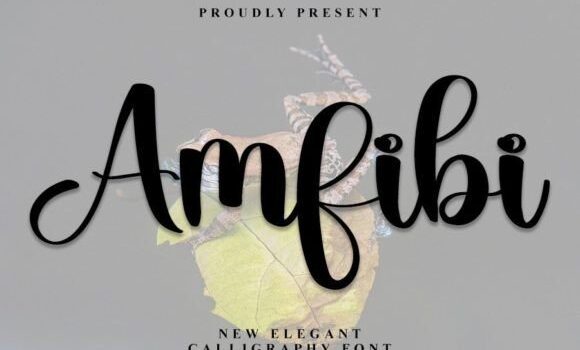
amfibi
Amfibi Font – Free Download Introduction to Amfibi Font Amfibi is a stylish handwritten font with a contemporary atmosphere and impeccable form, inspired by timeless classic calligraphy. 📸 Preview Gallery 5 images 📌 Product Name Amfibi Font 👤 Author Inermedia